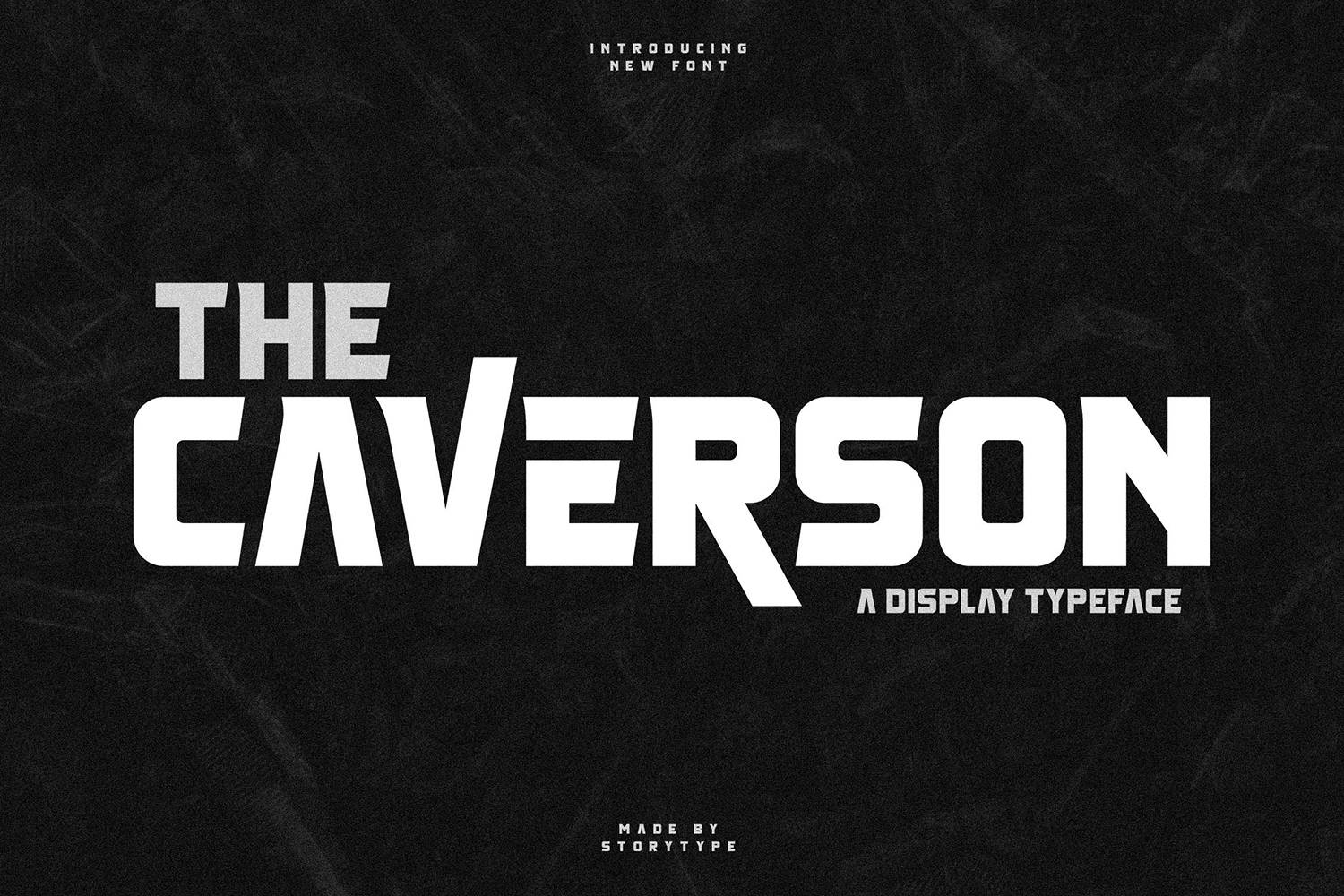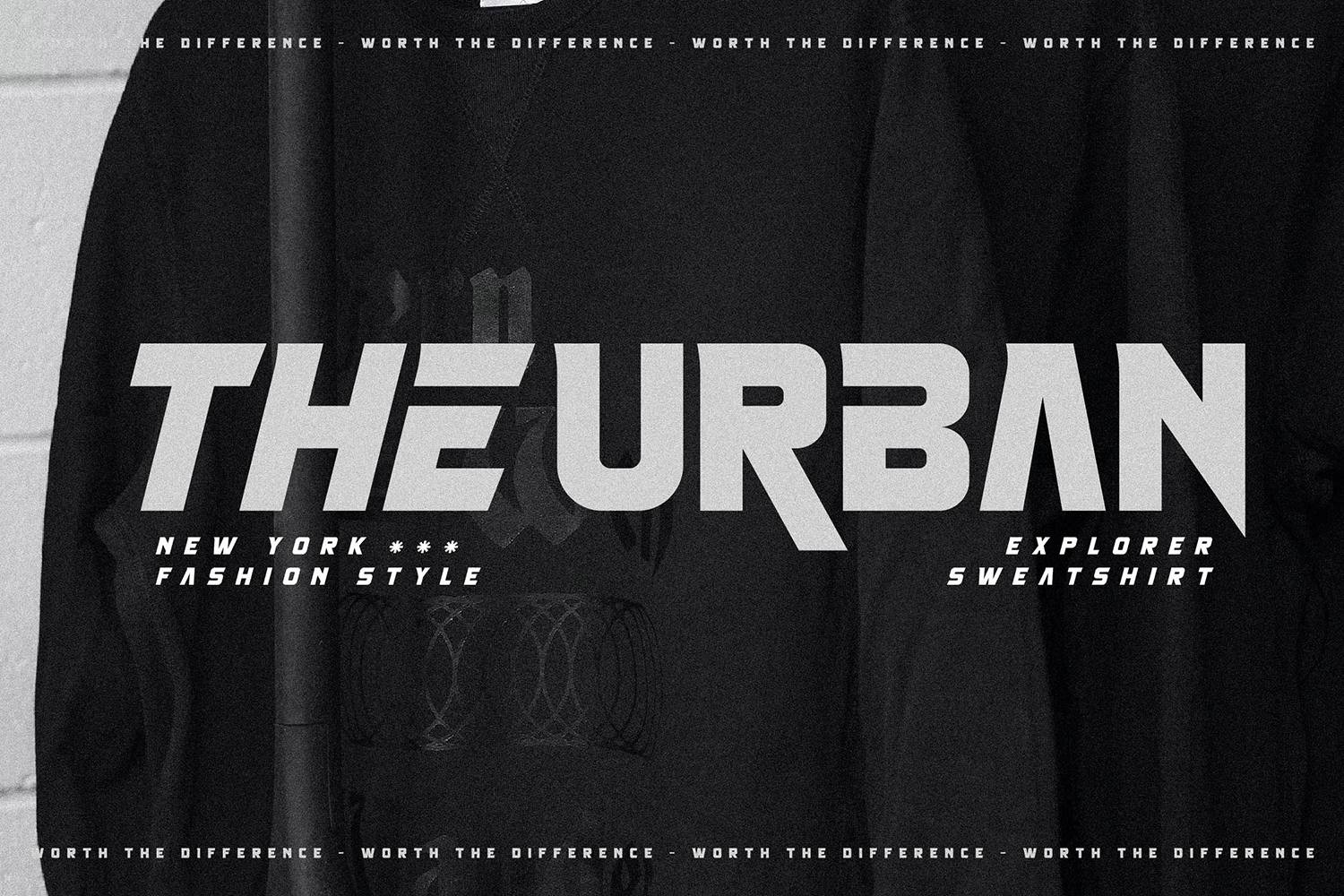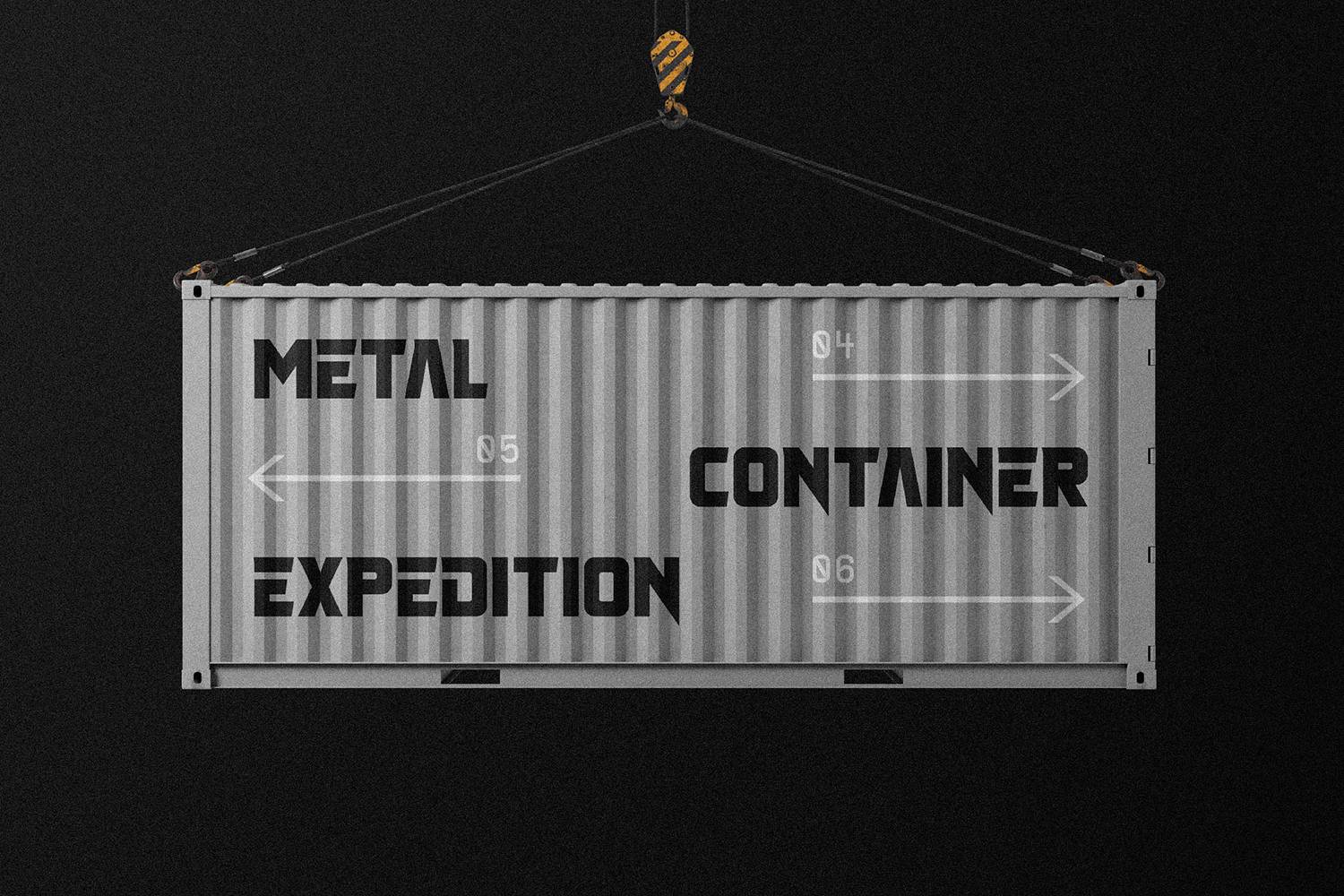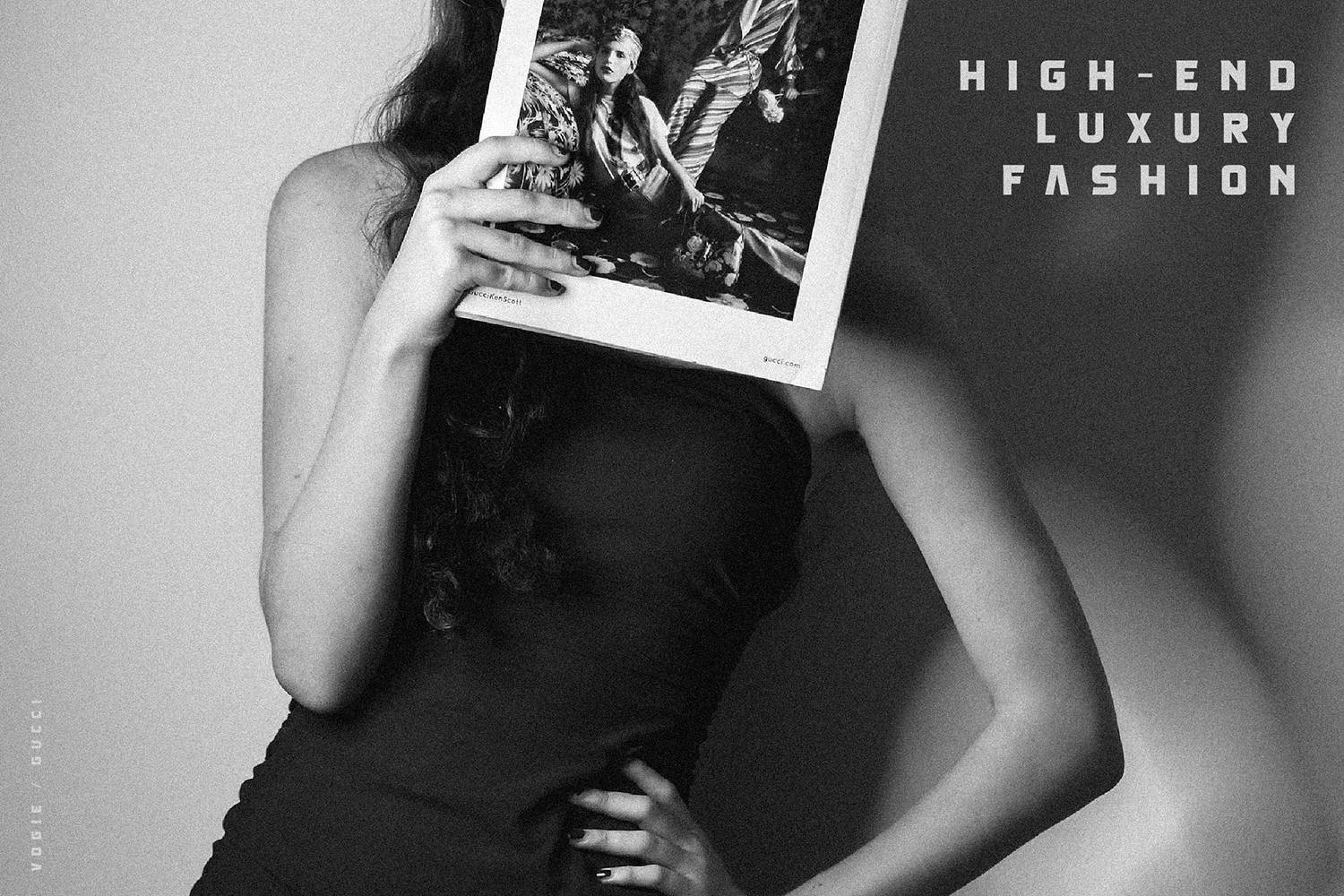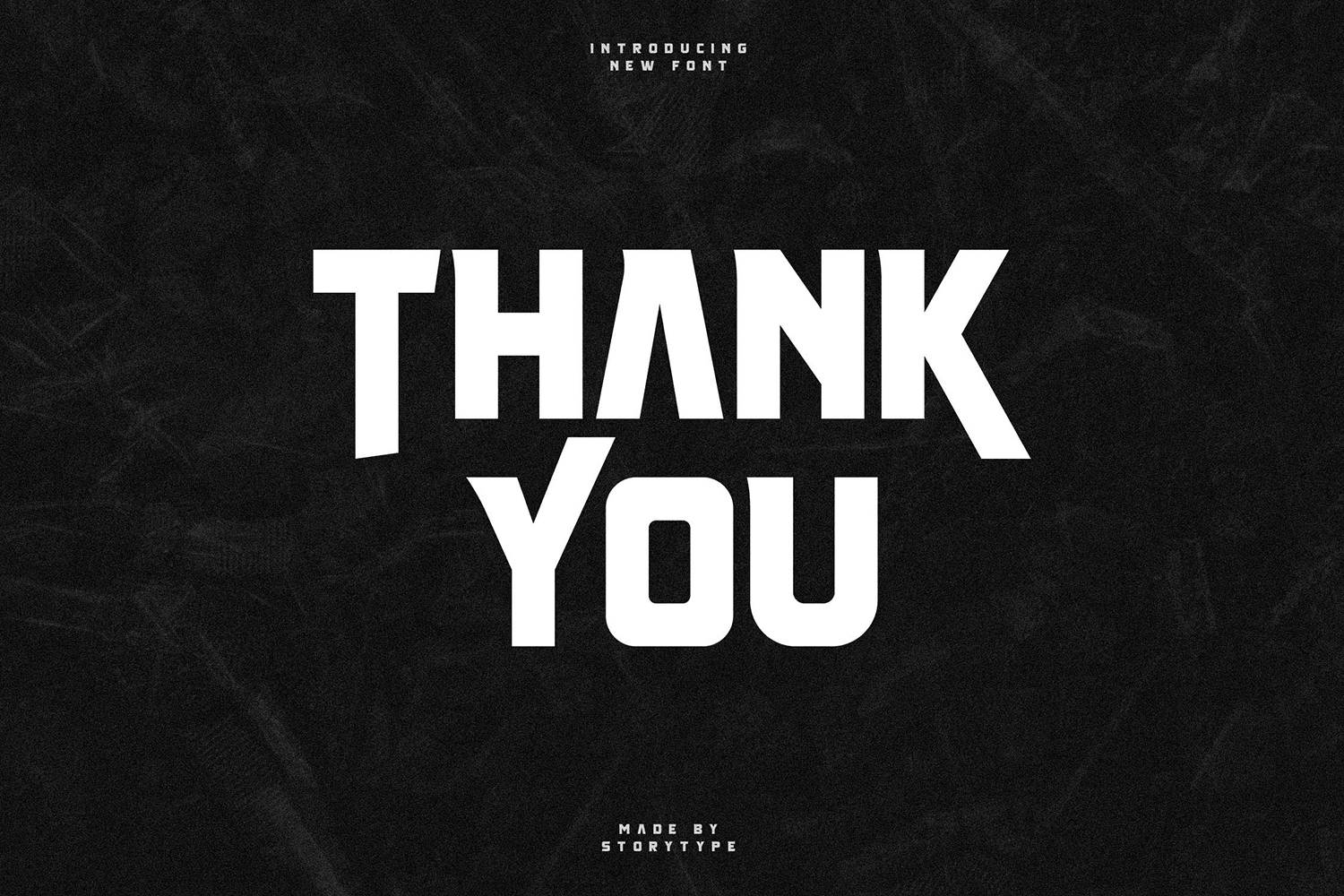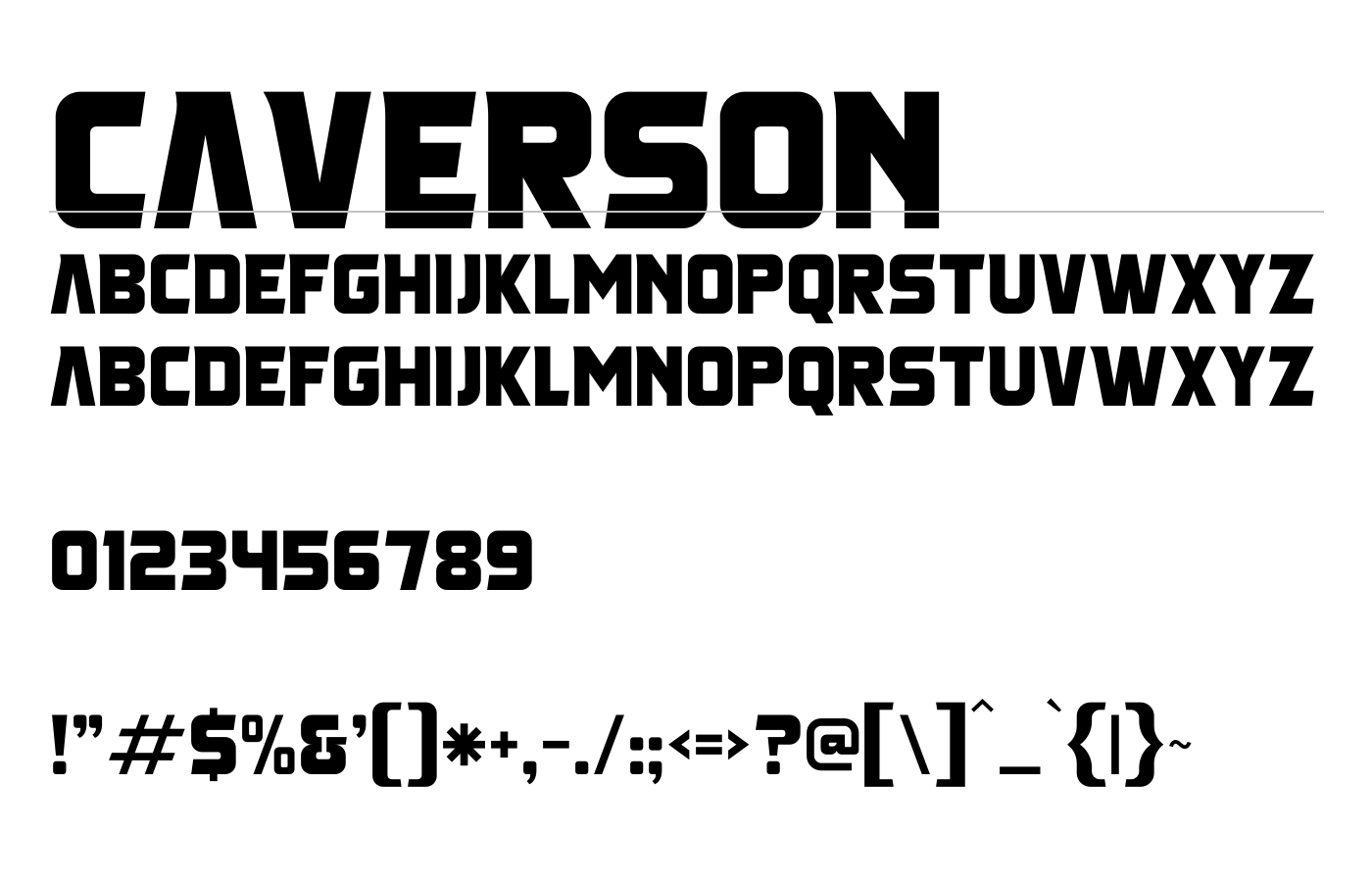
Caverson is a bold, condensed sans serif font with a strong geometric influence, featuring sharp edges and sturdy letterforms that convey a sense of power and modernity. Its high-impact style works particularly well for headlines, logos, and branding projects that seek to make a confident, dynamic statement. This font is ideal for use in sports, technology, and entertainment industries where a striking and assertive look is desired.
Caverson Font
About Caverson Font